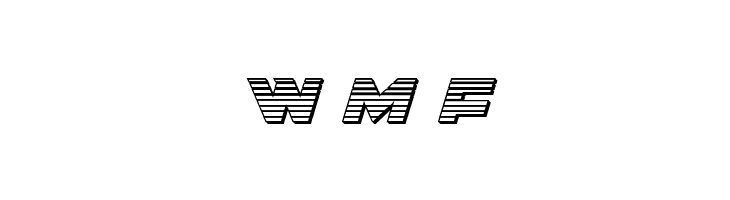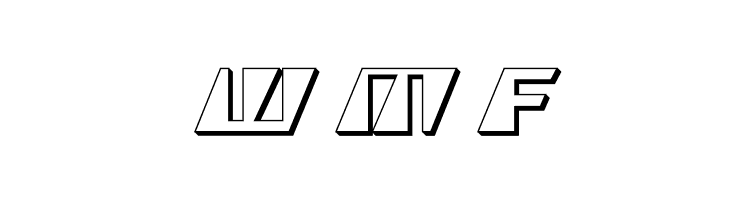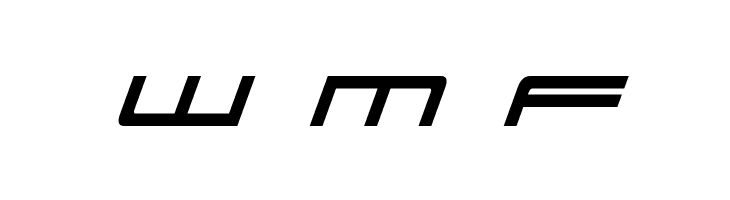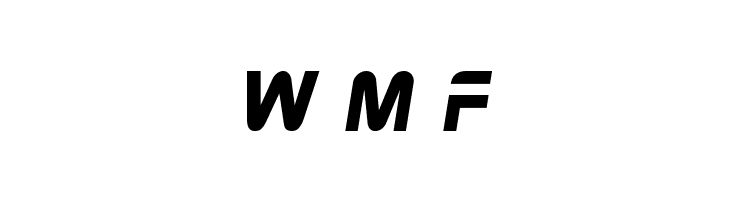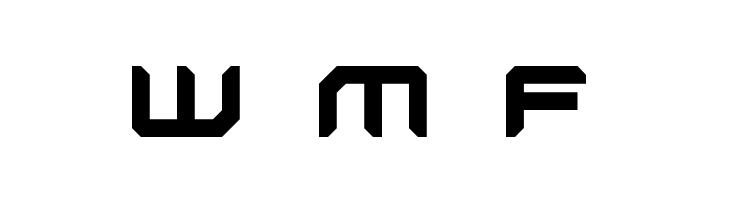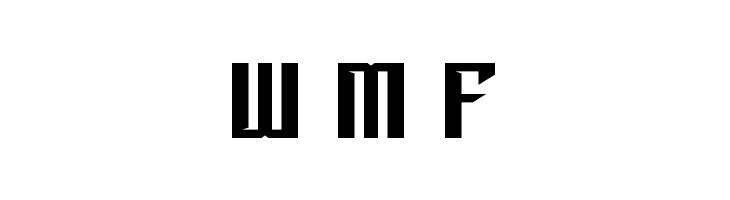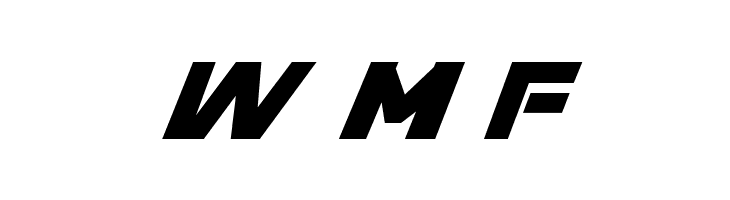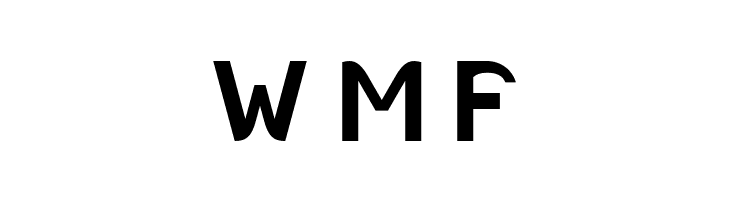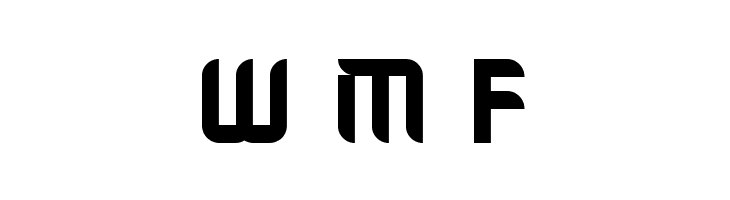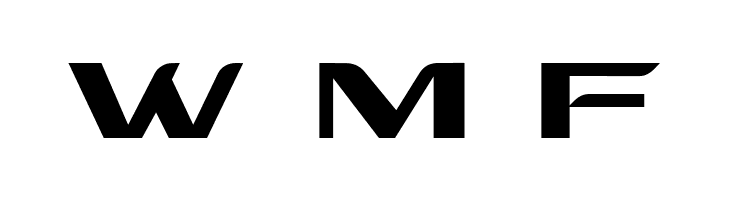
A bold, italicized font with a futuristic, chrome-like design and striped effect.
A dynamic, gradient-effect font with a bold, italicized style conveying speed and motion.
A bold, futuristic font with a halftone effect and geometric design.
A bold, angular font with a futuristic, three-dimensional outline design.
A sleek, futuristic, condensed italic font with angular cuts and a modern feel.
A bold, semi-italic font with a futuristic and geometric design.
A futuristic, angular font with bold geometric letterforms.
A modern, geometric font with rounded edges and consistent stroke widths.
A bold, rounded font with a futuristic and playful design.
A bold, angular font with a modern, edgy aesthetic.
A bold, geometric font with a maze-like, modern design.
A futuristic, geometric font with sharp lines and high contrast.
A bold, angular font with a futuristic and sporty aesthetic.
A futuristic, angular font with a bold, sci-fi aesthetic.
A bold, geometric font with unique cutouts and modern style.
A futuristic, geometric font with bold, angular lines and unique cut-out elements.
A bold, italic, futuristic font with angular, streamlined characters.
A futuristic, geometric font with bold, angular characters.
A modern, italic font with clean lines and a dynamic style.
A bold, futuristic font with a 3D effect and sporty design.
A bold, geometric font with a playful and modern aesthetic.
A modern, geometric font with sharp edges and a futuristic style.
A futuristic and innovative font with circular design elements.
A futuristic, hollow font with geometric shapes and consistent line thickness.
A futuristic, geometric font with bold, stencil-like characters.
A modern, hollow, inverse font with geometric outlines and a futuristic look.
A futuristic, hollow, geometric font with clean, continuous lines.
A bold, italicized geometric font with a futuristic style.
A brush-style font with a glitch effect, offering a modern and edgy look.
A bold, glitch-inspired font with a digital, fragmented aesthetic.
A futuristic, geometric font with sharp angles and clean lines.
A modern, italicized font with a gradient effect, ideal for dynamic and futuristic designs.
A futuristic, italicized font with bold strokes and geometric shapes.